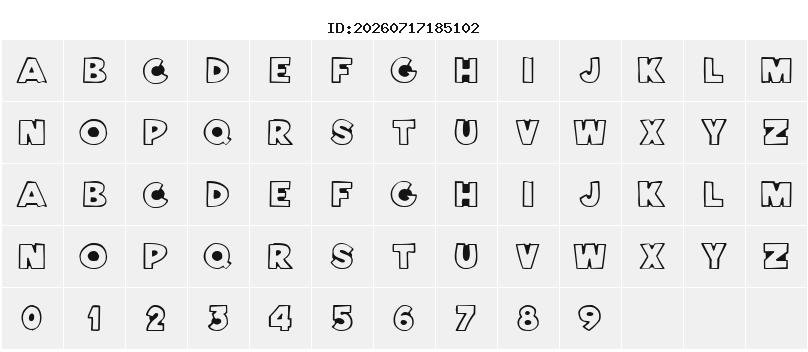
Bernardino Preview
• Font Name: Bernardino
• Full Font Name: Bernardino Normal
About Bernardino.ttf
Bernardino.ttf is a modern, elegant sans-serif font designed for ultimate readability and visual harmony. Perfect for branding, headlines, web design, and print materials.